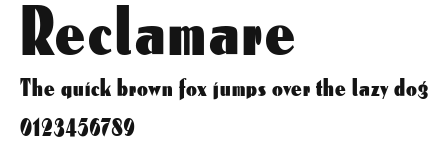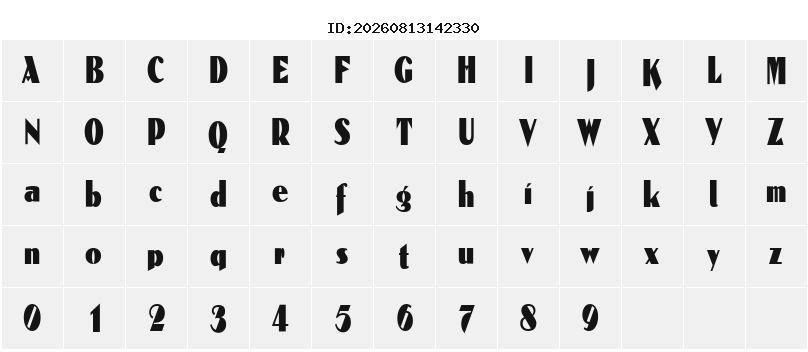
• Font Name: Reclamare
• Full Font Name: Reclamare
About Reclamare.ttf
Reclamare.ttf is a modern, elegant sans-serif font designed for ultimate readability and visual harmony. Perfect for branding, headlines, web design, and print materials.